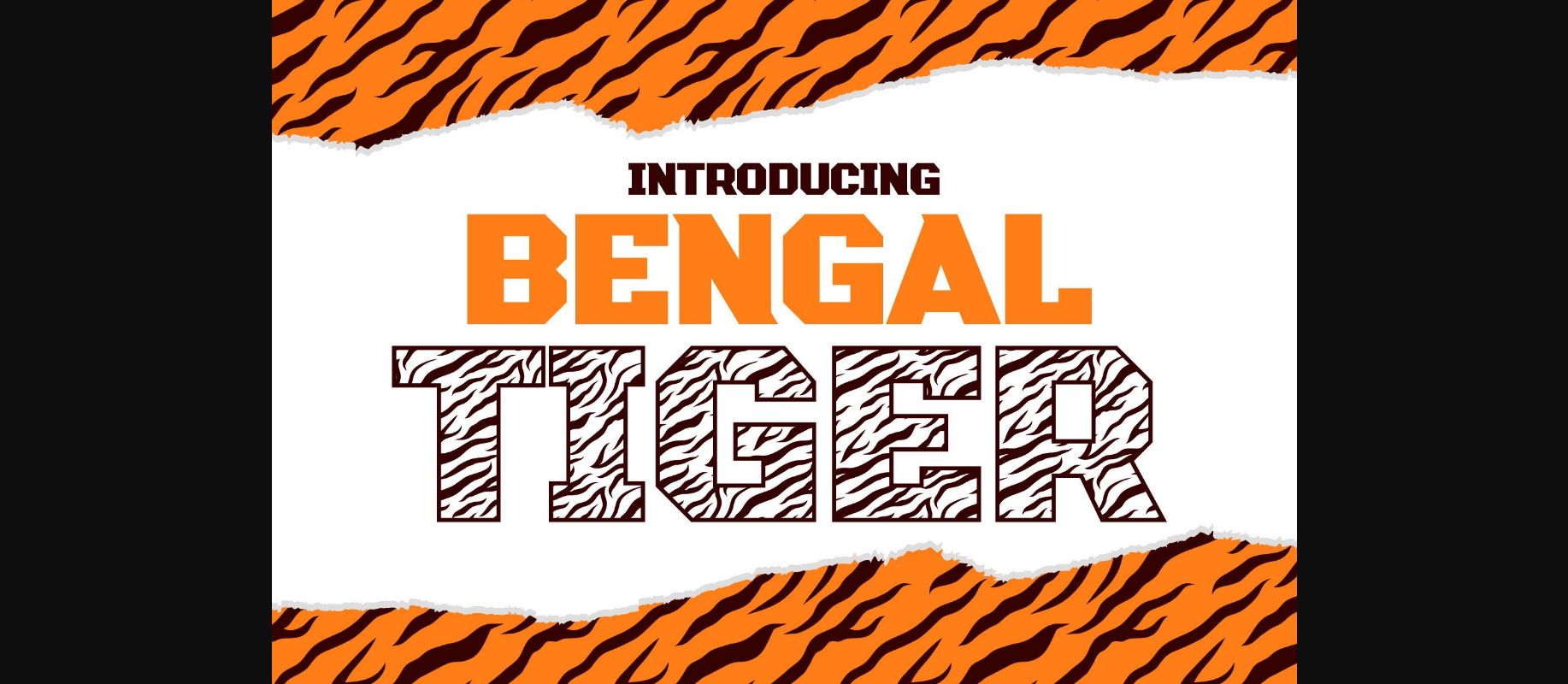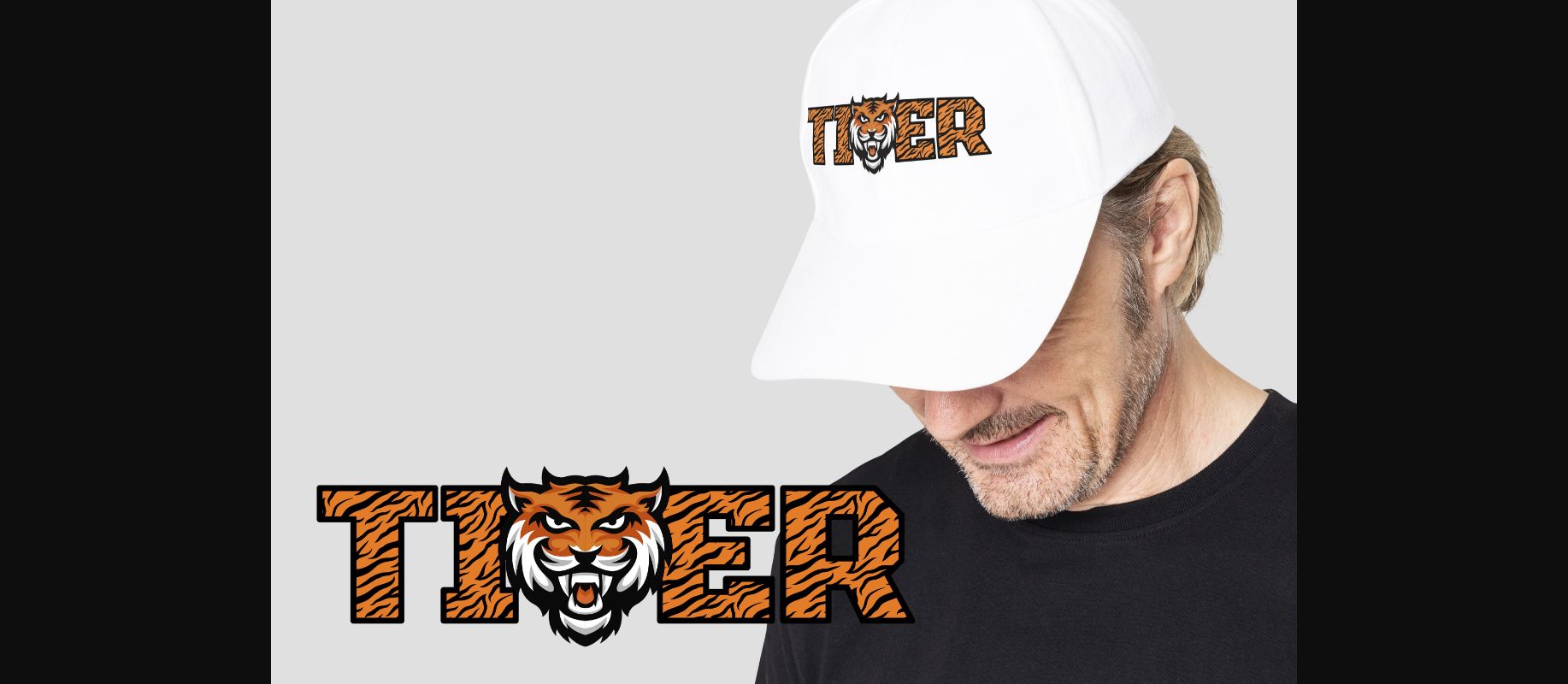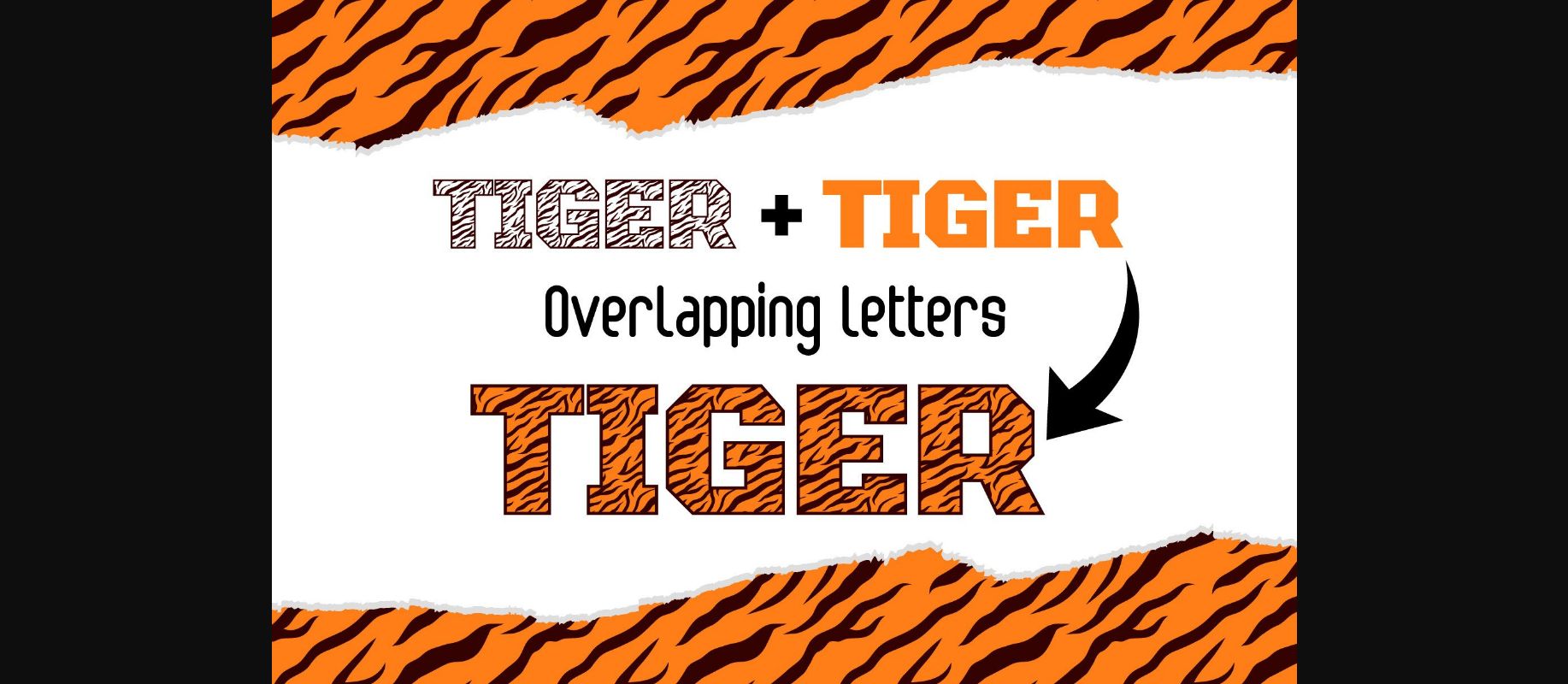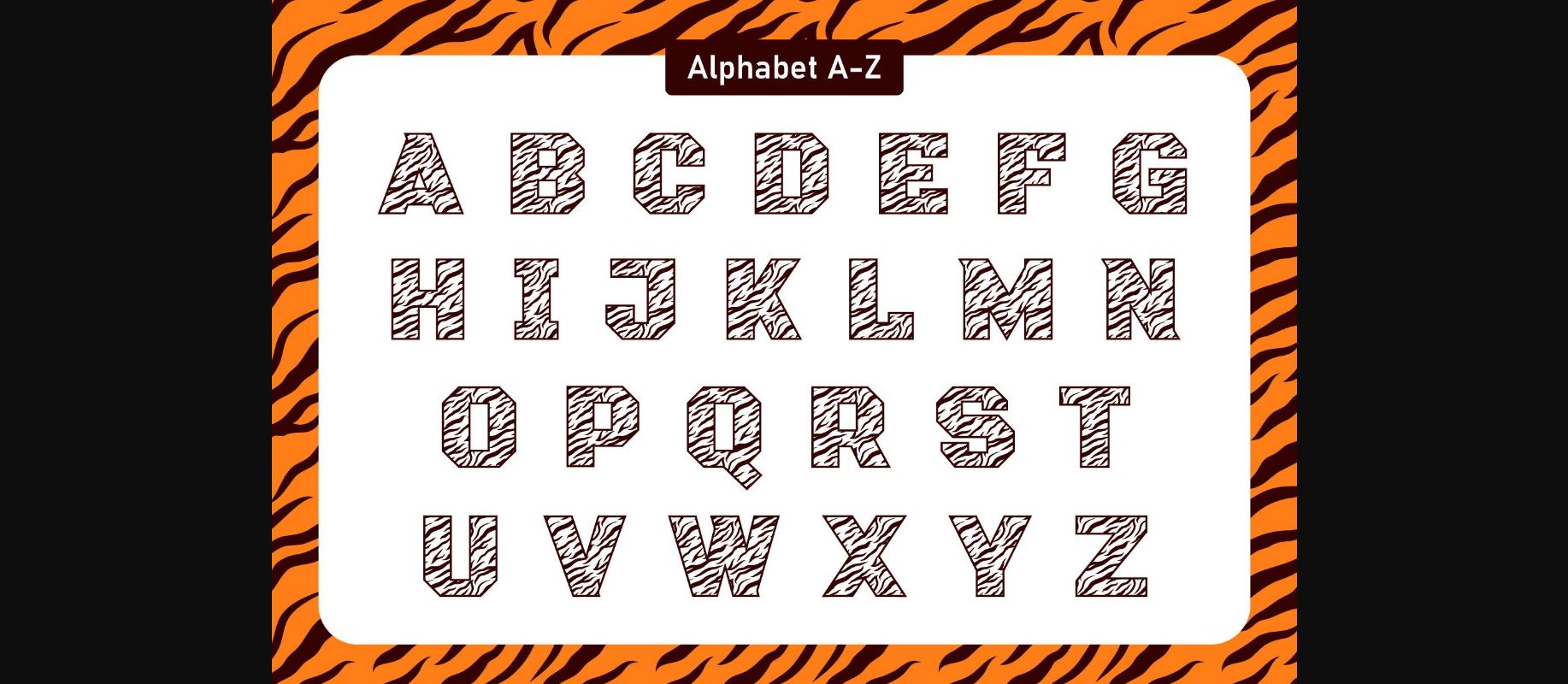
About Bengal Tiger Font
Bengal Tiger is a cool and fun decorative font. with a strong outline and incredibly cool characters. Publications, logos, business cards, or printed on t-shirts, this font will look outstanding in any situation. This font will be an incredible asset to your fonts’ library, as it has the potential to elevate any creation.